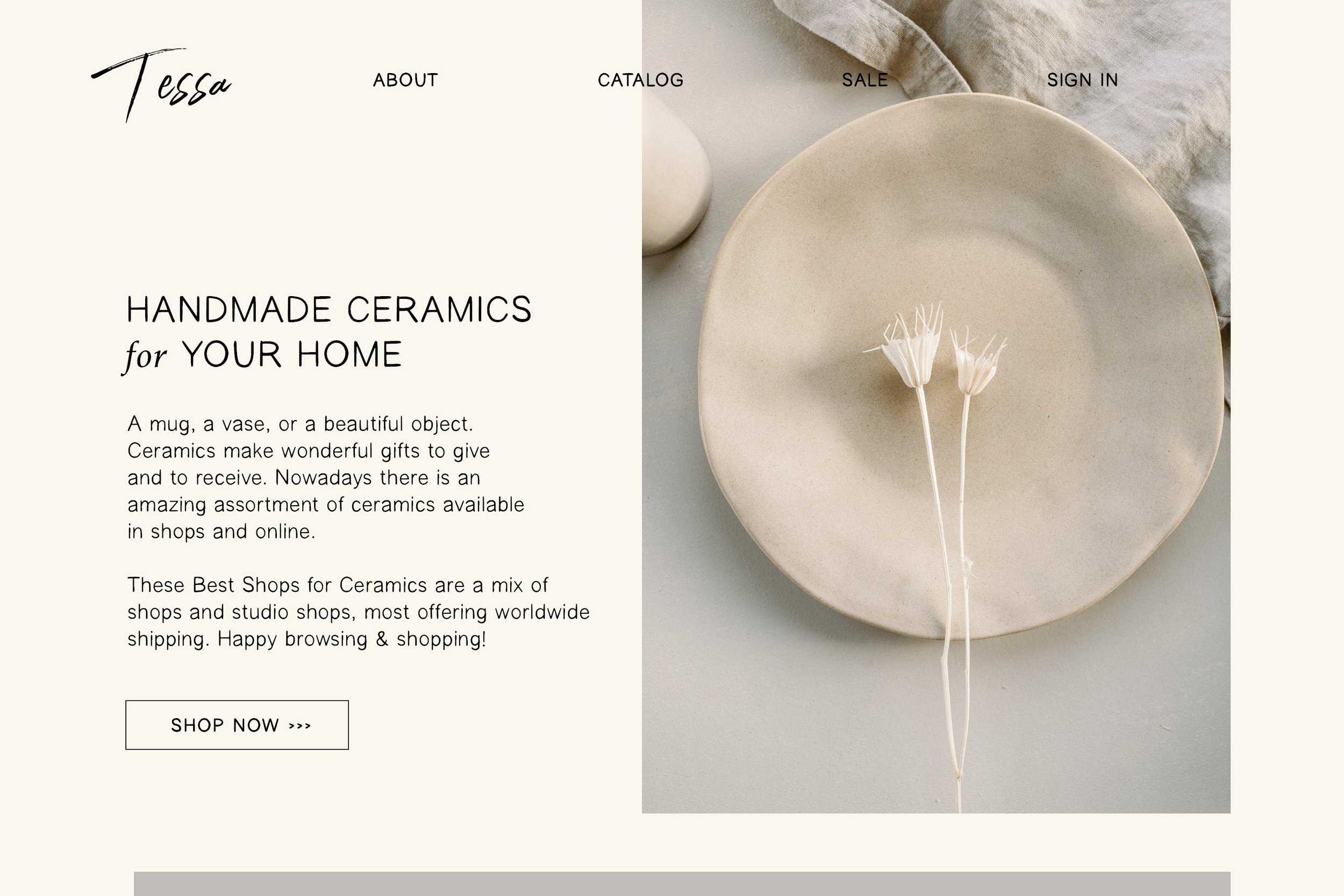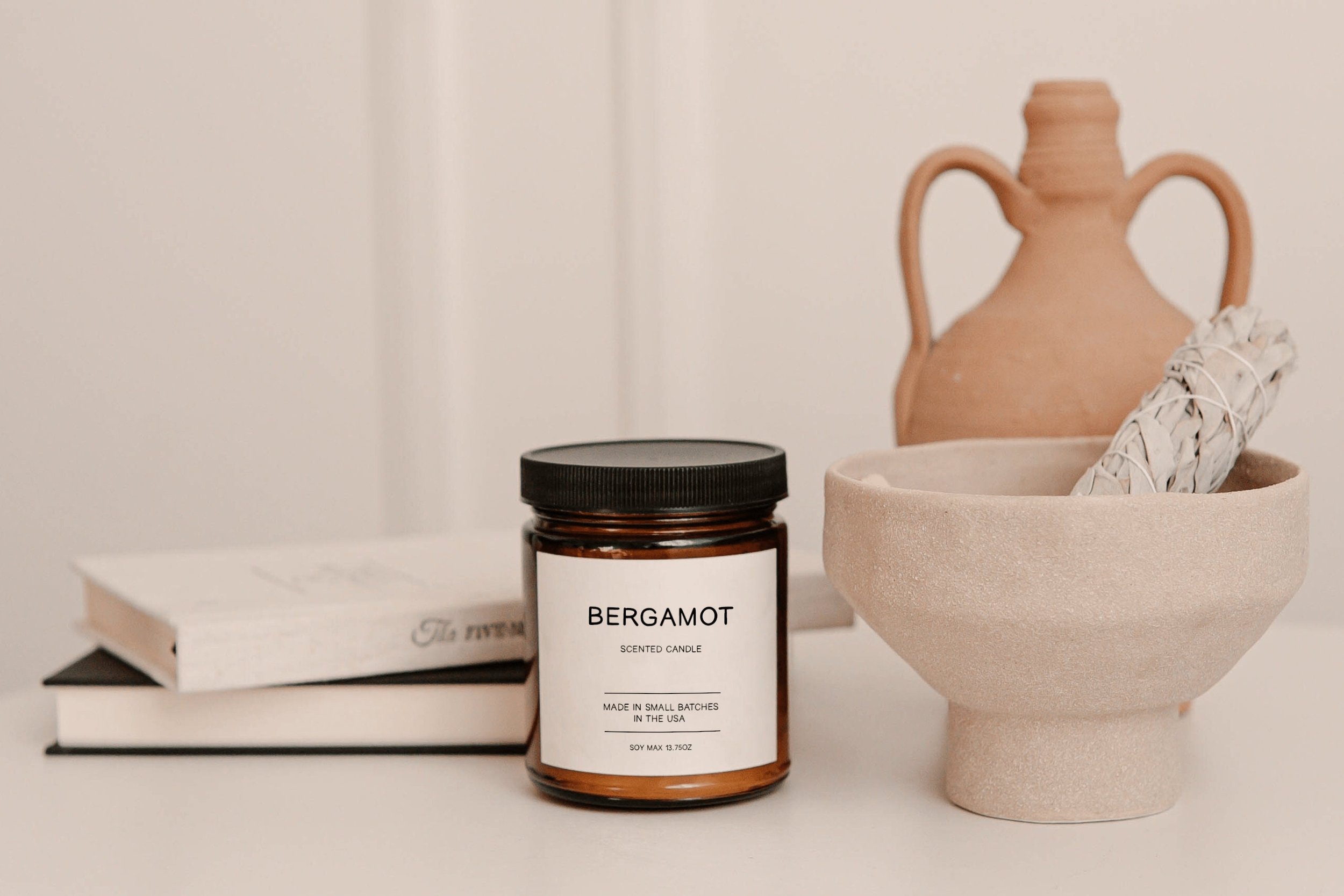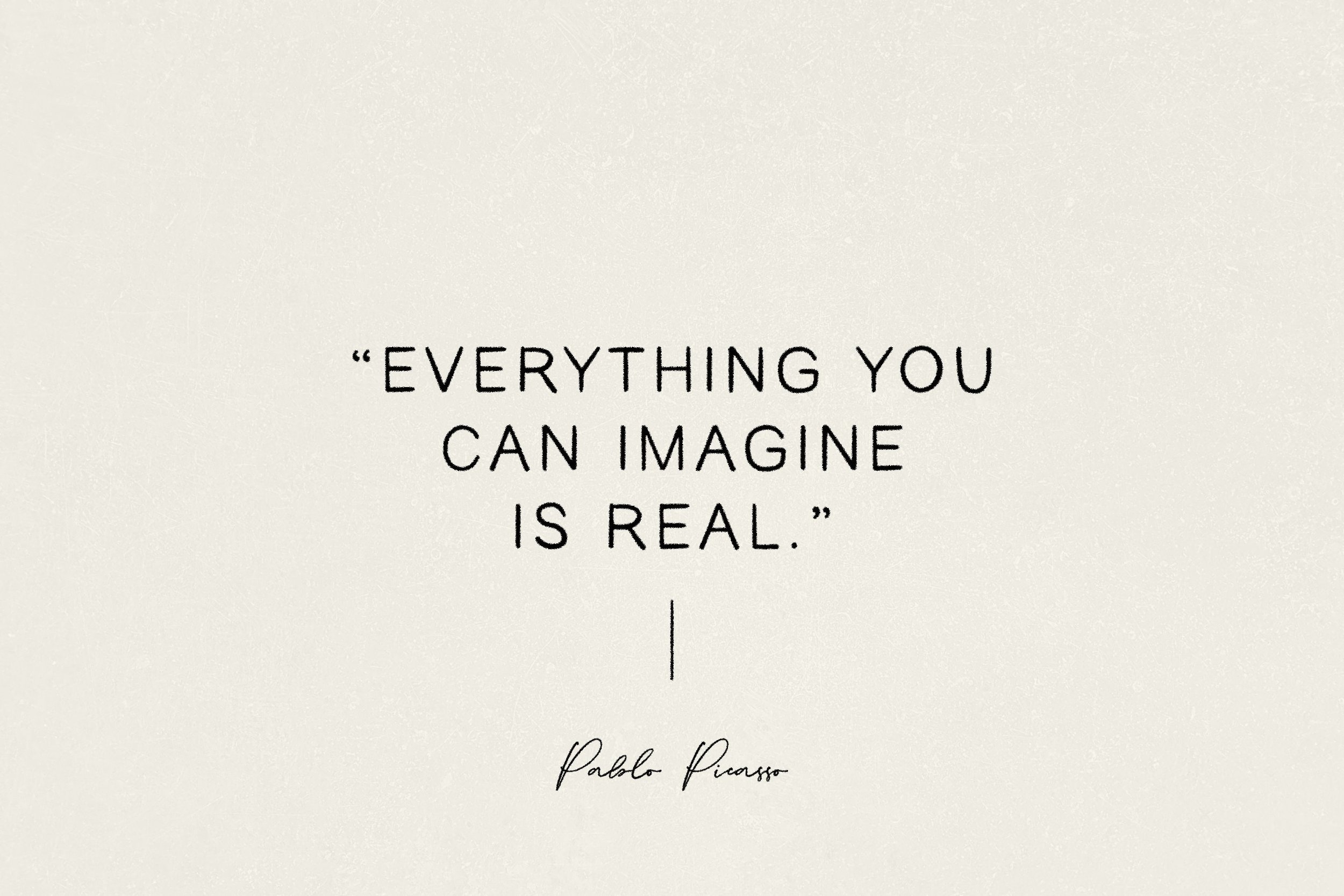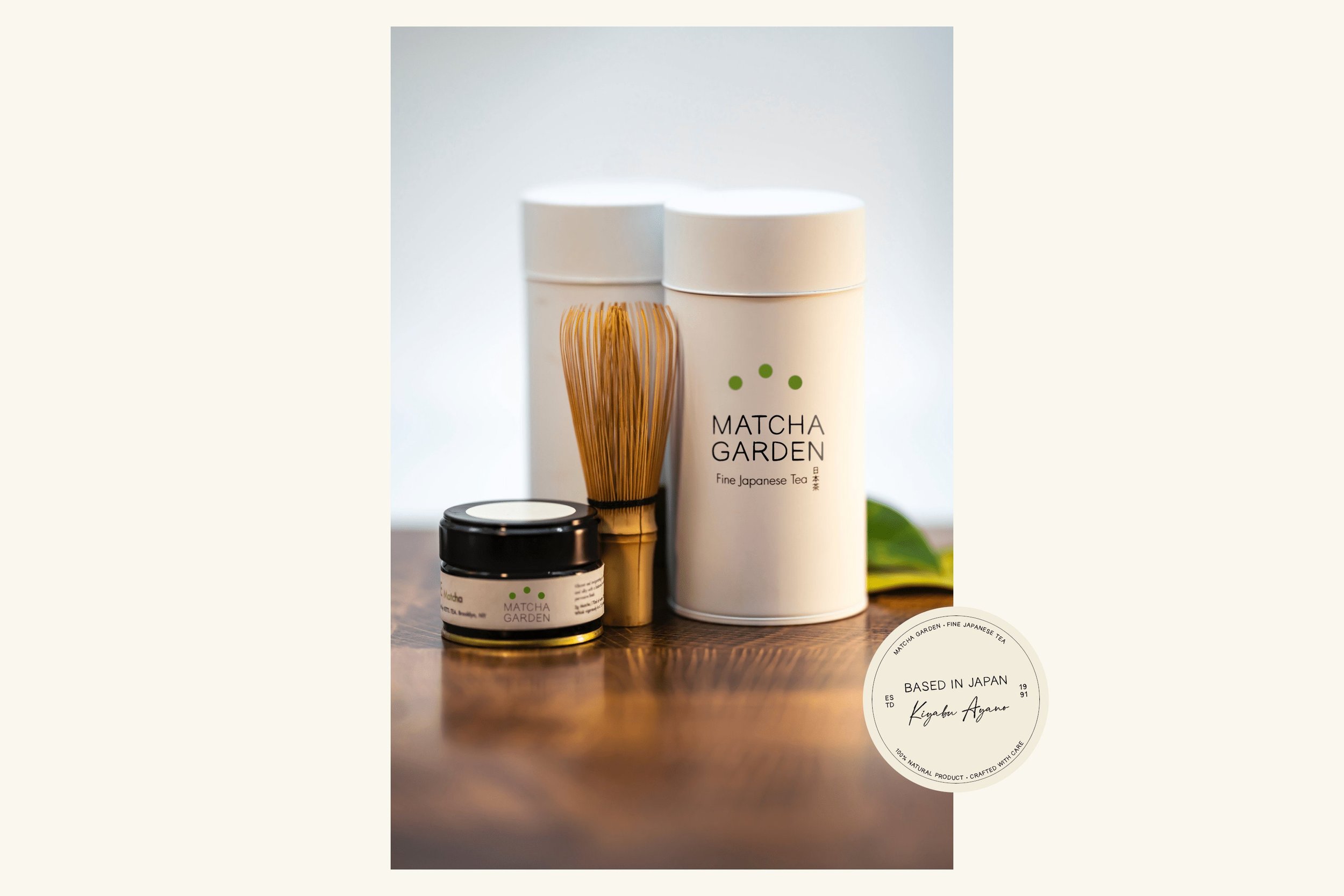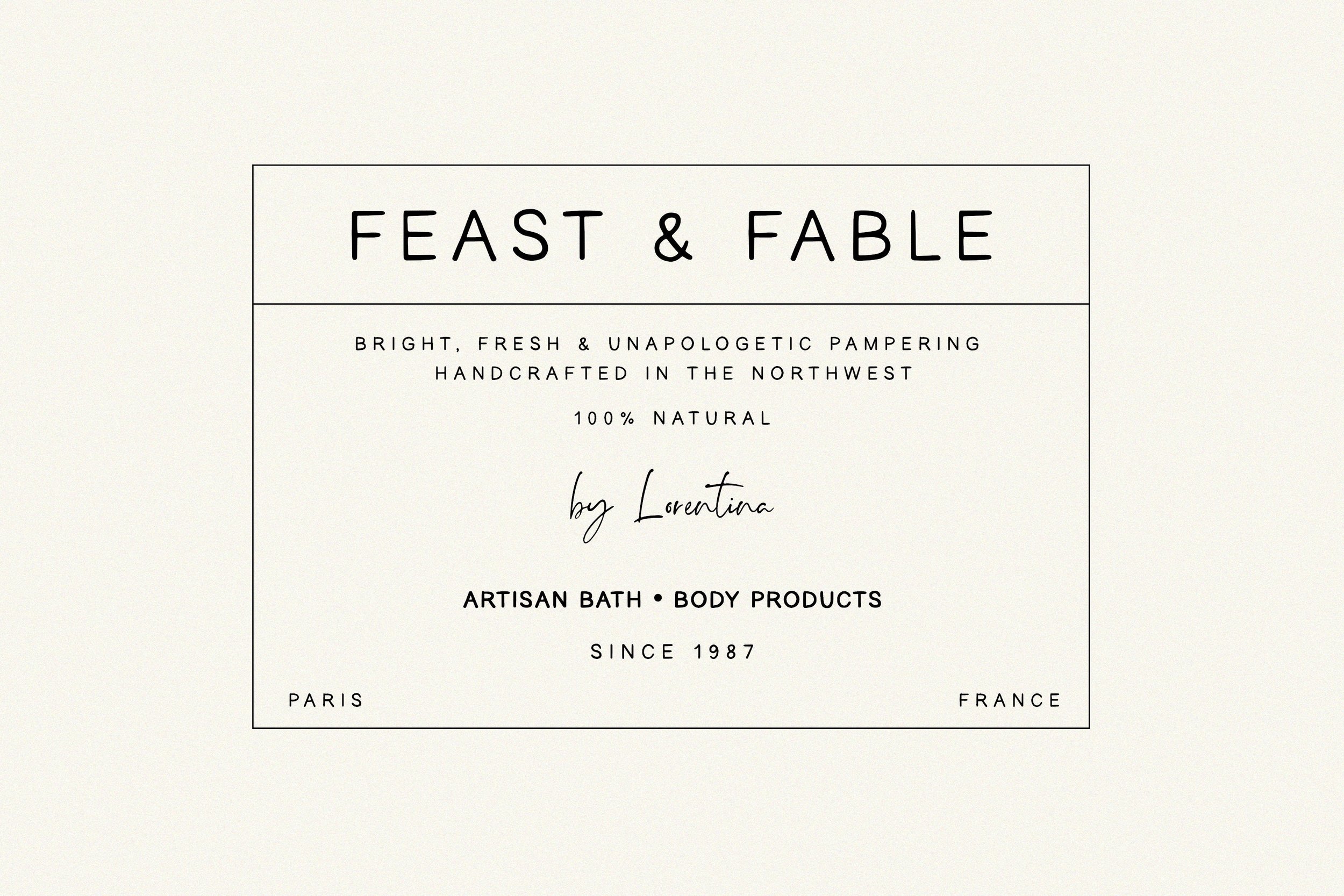
Francesca Handlettered Sans
Introducing, Francesca - Sweet Handwritten Sans. Great for headlines and body text.
- Upper/lowercase, numbers, punctuations;
- Regular, Italic, Bold, Bold Italic.